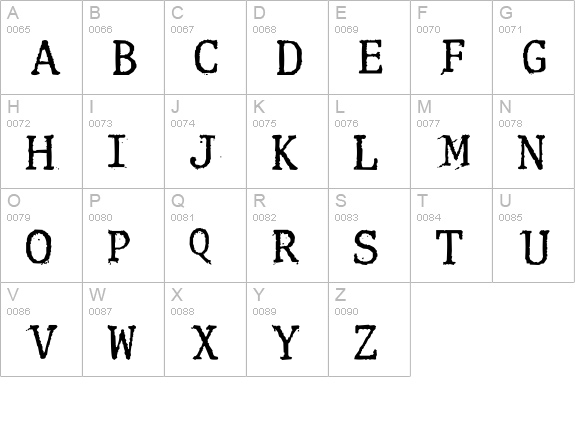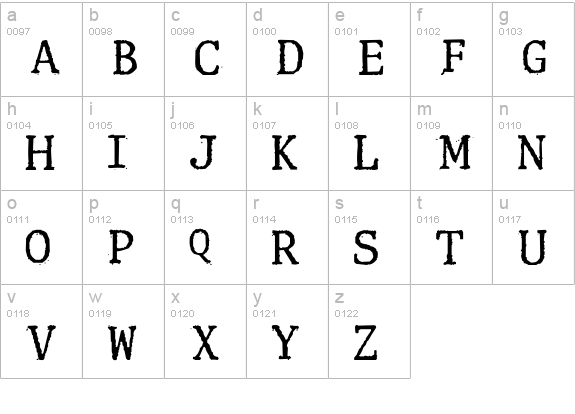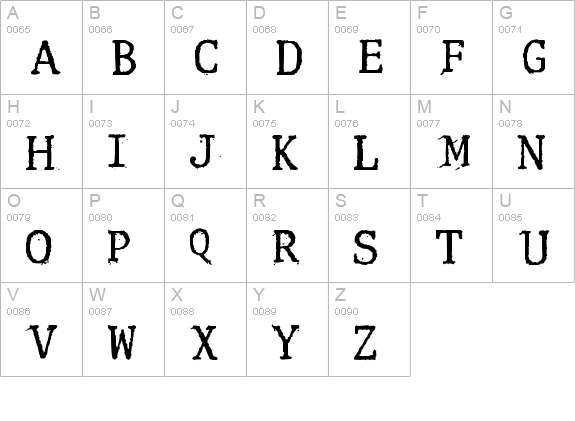
Introducing Clunk font, a unique and eye-catching typeface that is sure to make your designs stand out! With its bold and modern look, Clunk is perfect for creating attention-grabbing headlines, posters, logos, and more. This versatile font features a quirky and playful style that will add personality to any project. Whether you're working on a branding project or designing a fun invitation, Clunk is sure to make a statement. Best of all, Clunk font is completely free to download at FontsMarket.com. So why wait? Add this fantastic font to your collection today and start creating stunning designs that will leave a lasting impression!